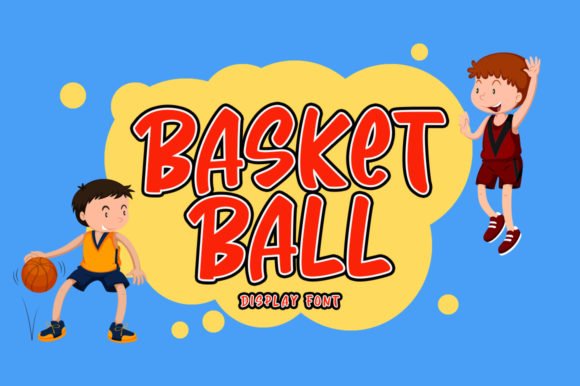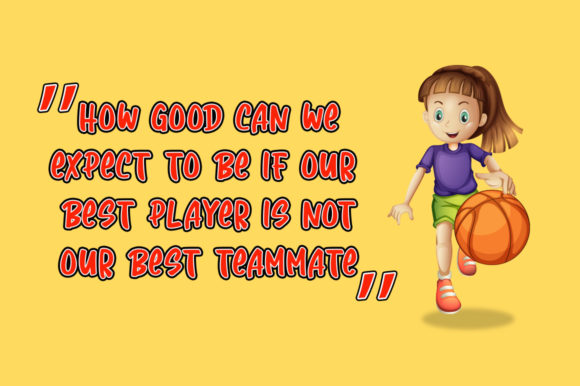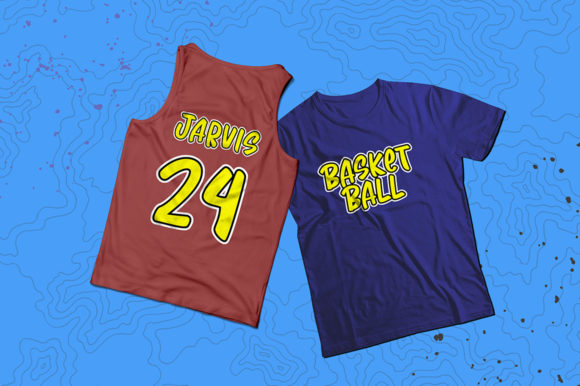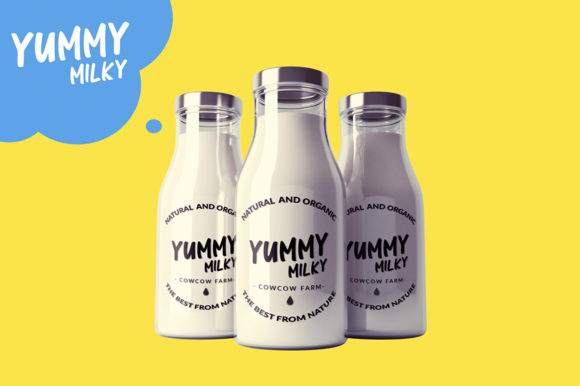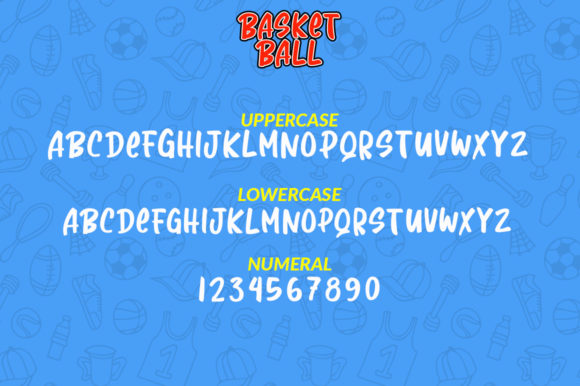
Unleashing Creativity with Basketball Font
Do you remember the thrill of brainstorming a new project and suddenly hitting upon a brilliant idea that you just can’t wait to bring to life? For many creatives, this moment is the spark that sets their imagination ablaze, and they can’t help but feel a rush of excitement as they envision their masterpiece taking shape.
When it comes to capturing that same childlike playfulness and sense of wonder, there’s no better font than Basketball Font. This enchanting display font is designed to add a touch of magic to any project, from kids’ birthday cards to school newsletters, and everything in between. With its bouncy, fun personality, Basketball Font is a valuable tool for designers looking to add a bit of whimsy to their work.
Whether you’re a seasoned pro or just starting out, Basketball Font is the perfect addition to your creative toolkit. Its versatility and charm make it a go-to choice for designers looking to create standout projects that are sure to delight.
Basketball Font Key Features
- Font Family: A unique, custom-designed font specifically for basketball-related uses, including team logos and branding.
- Font Size: Designed to be highly legible at large font sizes, with optimal readability at sizes ranging from 24pt to 72pt.
- Resolution: Suitable for use at high resolutions (up to 300 DPI) for print materials, and at lower resolutions for digital applications.
- Unique Characteristics: Features a bold, dynamic feel with sharp lines and rounded edges, making it highly distinctive and recognizable.
Basketball Font Review
Overall, I’d say Basketball Font is a decent choice for sports-related designs, but it’s not without its flaws. Let’s break it down.
- The font is energetic and playful, making it perfect for basketball-themed designs or any project that needs a dynamic vibe.
- The bold and italic styles are well-crafted, providing a nice contrast to the regular font.
- The font is highly legible, even at smaller sizes, making it suitable for body text or titles.
- The font’s bold weight can sometimes appear a bit clumsy, especially in smaller sizes.
- The italic style is a bit too slanted, which may not be ideal for all designs.
- The font doesn’t have a huge character set, which might limit its use in certain projects.
Basketball Font is a solid choice for sports-related designs or any project that needs a fun, energetic vibe. While it has some limitations, its strengths make it a worthwhile option. With some careful use and consideration, Basketball Font can be a great addition to your design arsenal.
Tips for Getting the Most Out of Basketball Font
Here are some tips for getting the most out of Basketball Font:
- Use it in conjunction with other sports-themed graphics and fonts for a cohesive look.
- Use it to create eye-catching headlines and titles.
Basketball Font is commonly used in:
- Sports-themed designs and graphics.
- Event promotions and marketing materials.
- School and team branding.
Alternatives to “Basketball Font” for Designers
1. Rockwell Font
Rockwell Font is a classic serif font that is often used in sports branding and advertising. It’s a great choice when you want to convey a sense of strength and tradition. Unlike Basketball Font, Rockwell Font has a more formal and elegant feel to it, making it suitable for corporate and high-end sports branding.
2. Sports Script Font
Sports Script Font is a modern and dynamic font that is perfect for creating a fun and energetic vibe. It’s great for use in promotional materials, social media, and event branding. Compared to Basketball Font, Sports Script Font has a more playful and casual feel to it, making it suitable for youth sports and recreational events.
3. Impact Font
Impact Font is a bold and attention-grabbing font that is often used in sports headlines and announcements. It’s a great choice when you want to create a sense of excitement and urgency. Unlike Basketball Font, Impact Font has a more dramatic and attention-grabbing feel to it, making it suitable for high-energy sports events and competitions.